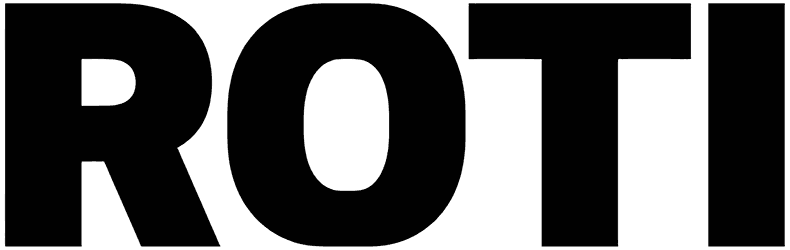
Roti Font
Most of the time, you can count on a modern and humble face of a sans serif font like this one to bold your intended words and make your design unique. The letters of this basic font are strong and humble, but it doesn’t cover lowercase letters. Test the Roti font for your new projects, such as a holding logo, and become unforgettable.